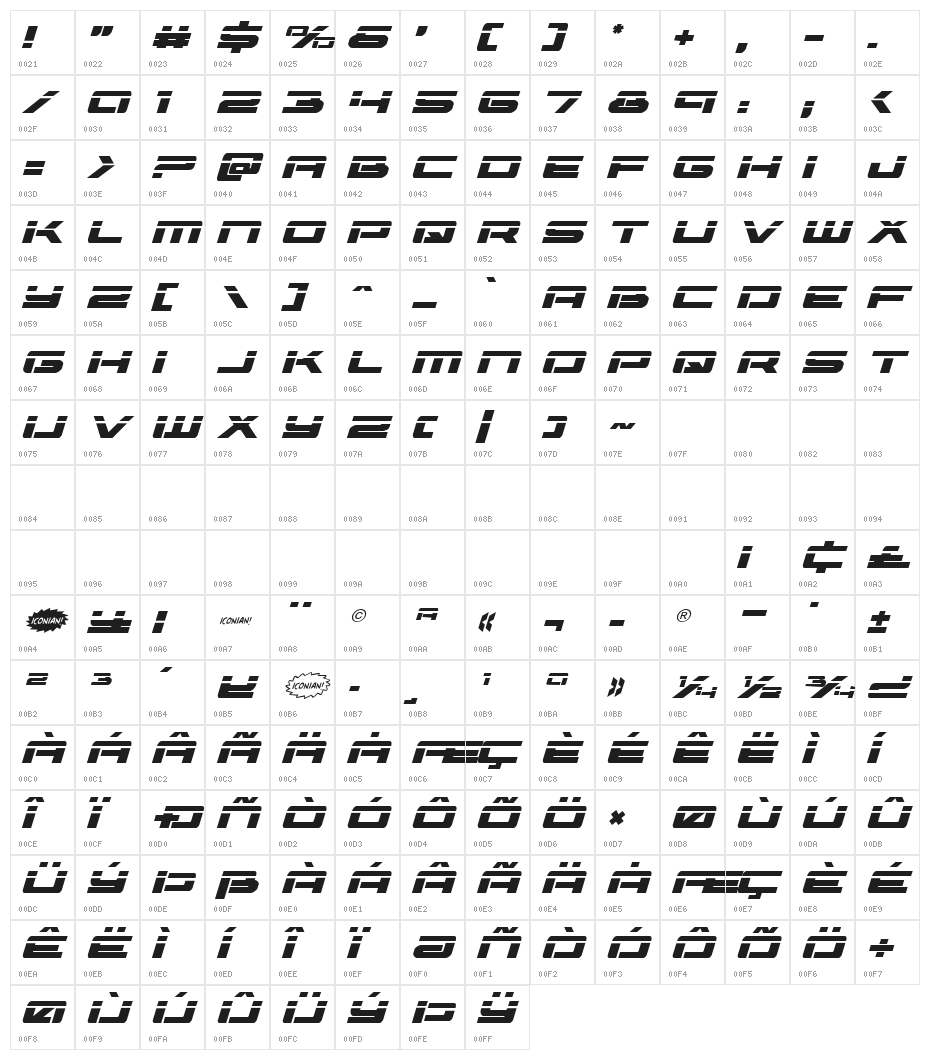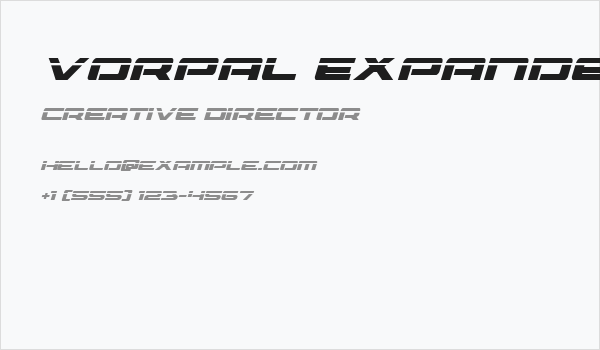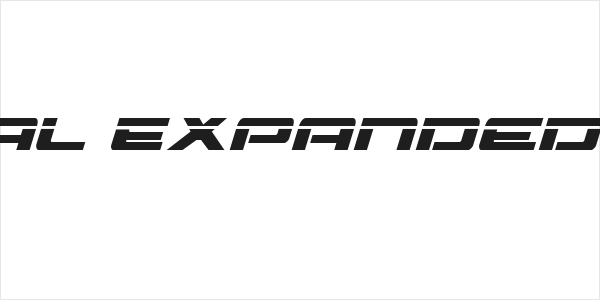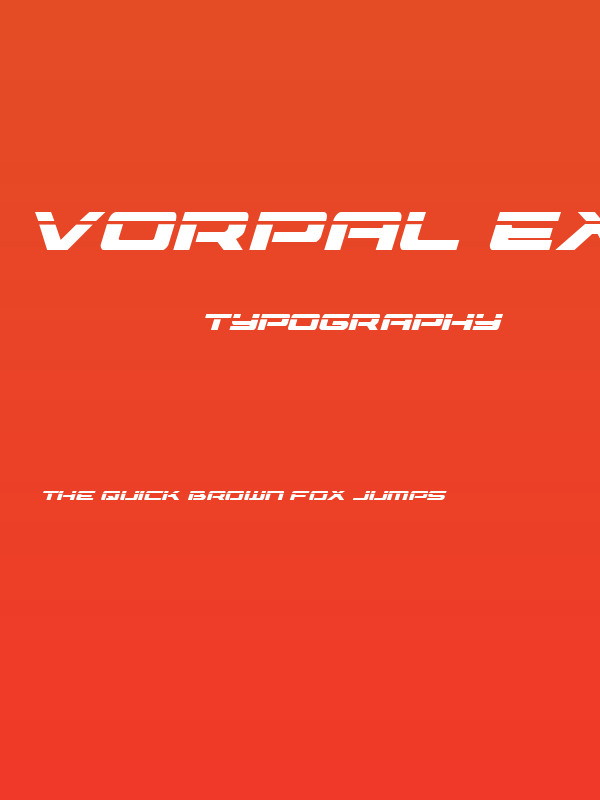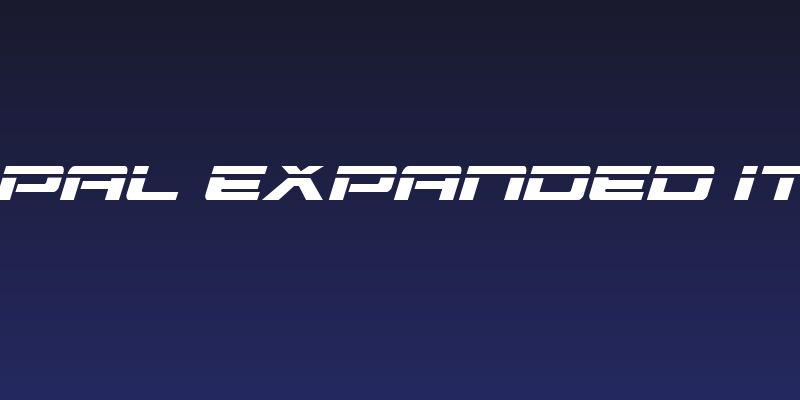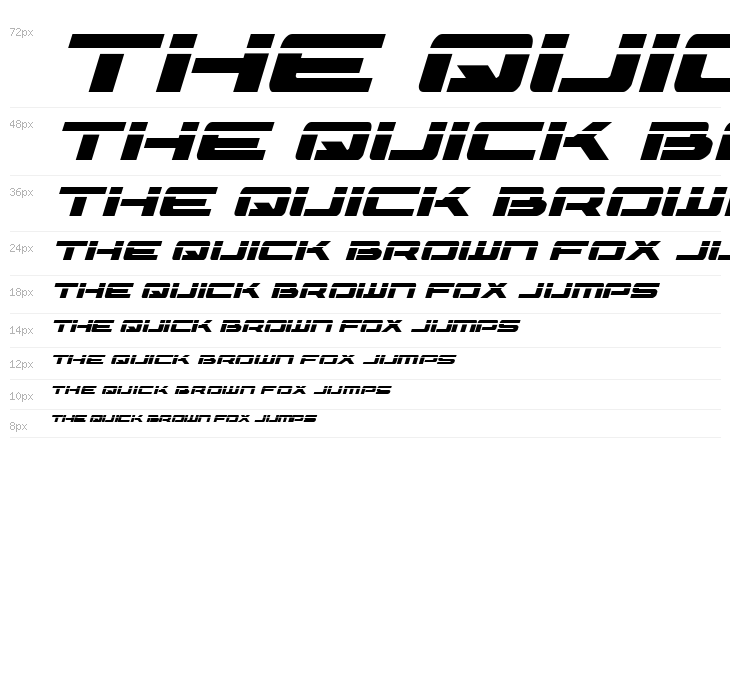
Vorpal Expanded Italic Font
Vorpal Expanded Italic Description
This font features a futuristic and dynamic design with a strong emphasis on angular lines and geometric shapes. The characters are italicized, giving them a sense of motion and speed. The expanded width of the letters adds to the bold and impactful appearance, making it suitable for attention-grabbing headlines and titles. The sharp edges and clean cuts of the strokes contribute to a modern and sleek aesthetic. The font maintains a consistent stroke weight, providing a uniform look across all characters. Its unique style makes it ideal for projects that require a contemporary and edgy feel.